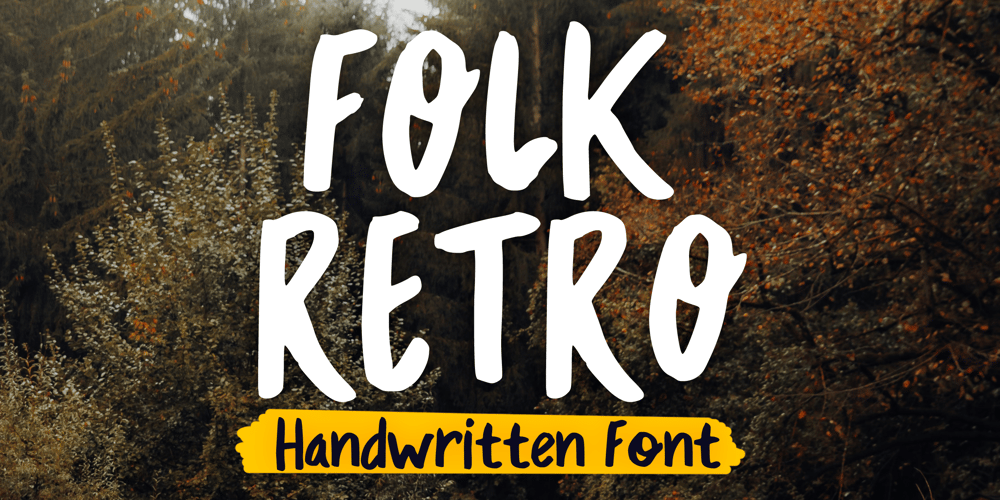
Folk Retro Font Family was designed by Gabriel Valentinus and published by Mvmet. Folk Retro contains 1 styles and family package options. Folk Retro is a cool and playful handlettered font, inspired by vintage western sign paintings. It will elevate a wide range of design projects to the highest level. You can use this font for many design ideas such as stickers, t-shirt designs, amazing logo designs, magazine or book covers, comics, cartoon drawings, and many more. Fall in love with its incredibly versatile style, and use it to create lovely designs!